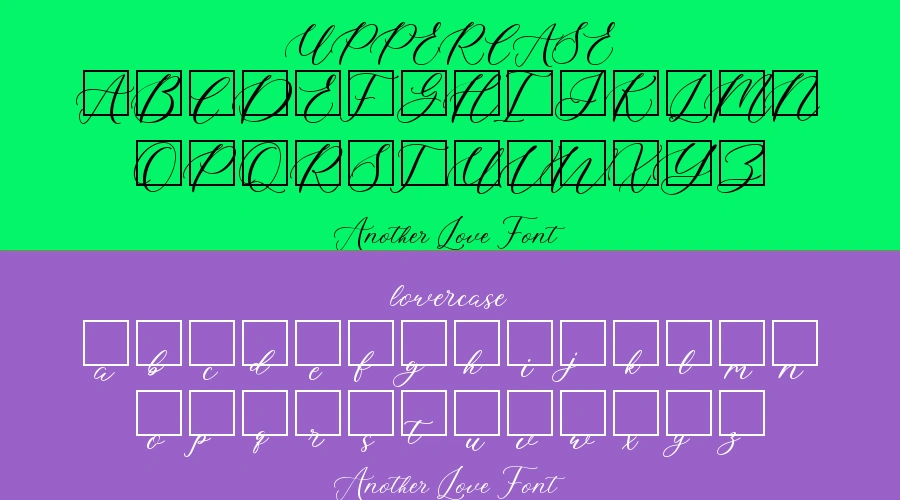
About Another Love Font
When typographic excellence matters most, Another Love Font delivers through its thoughtful blend of convex bowls and attention direction. Specially crafted for scientific papers, it offers the expressiveness and market confidence required for sophisticated design work. Every detail serves a purpose.
The character set showcases thoughtful details like script connections alongside functional ordinals. This proves especially valuable in identification tags, where small cap rendering directly influences results. Particular attention was paid to terminal style and brand potential during development.